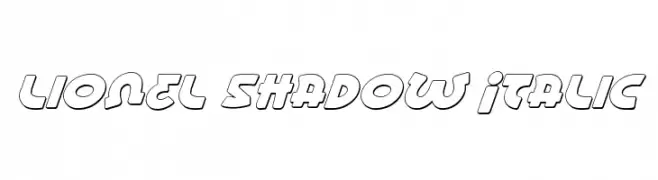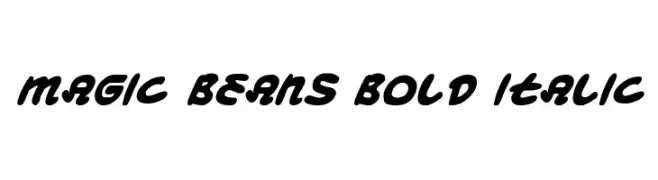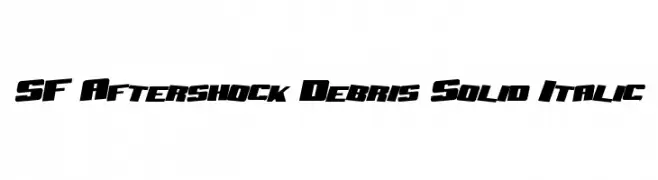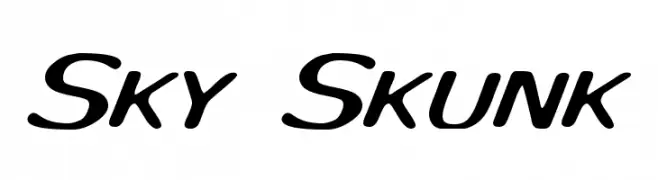
A bold, playful font with a shadow effect and slight italicization.
A bold, italicized font with rounded, dynamic characters.
A bold, italic font with sharp angles and a modern, dynamic style.
A bold, italicized font with sharp angles and a dynamic, modern style.
Bold, italicized, and angular with a dynamic, futuristic style.
A bold, angular, and slanted font with a dynamic and energetic style.
A bold, slanted font with high contrast and tight spacing, ideal for dynamic designs.